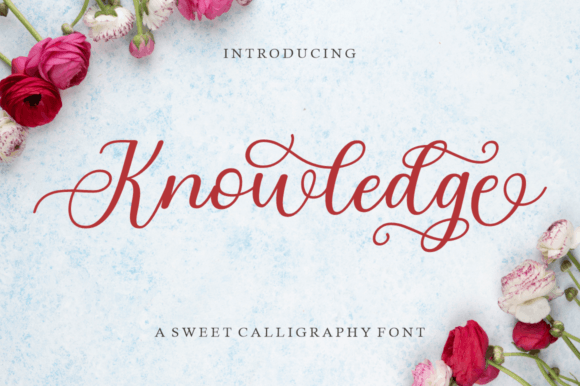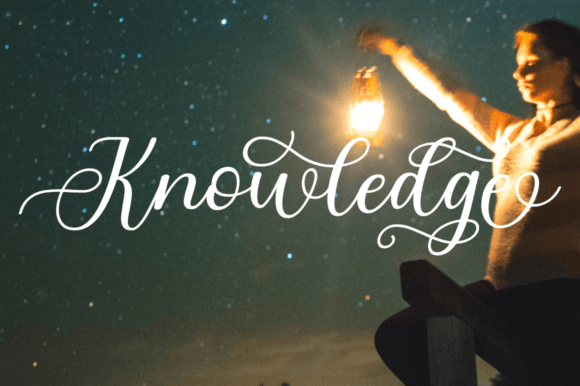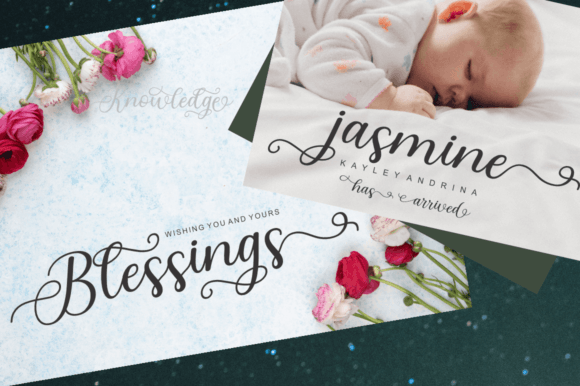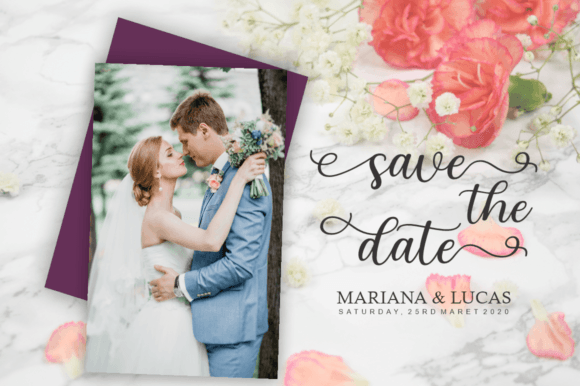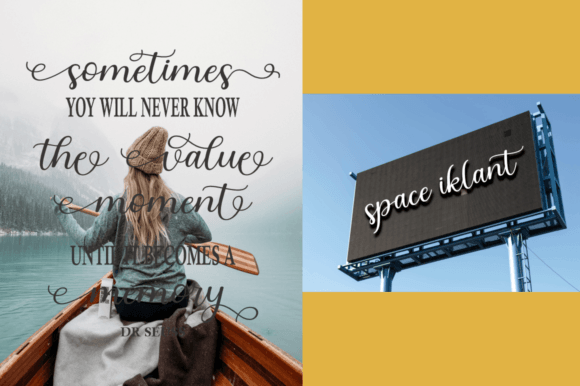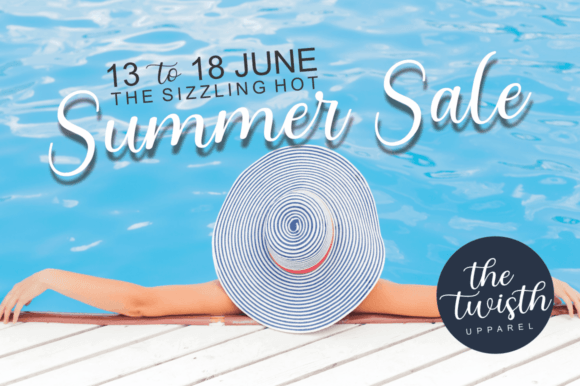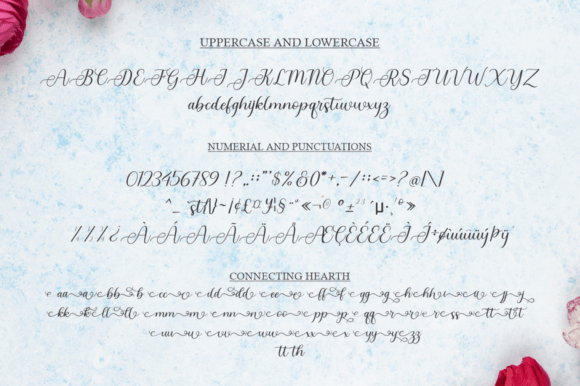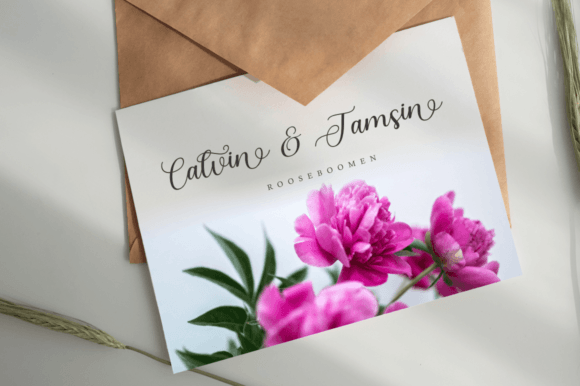
Knowledge Font
About Knowledge Font
“Knowledge” is a font that exudes style and elegance with its beautifully crafted handwritten design. Its sophistication makes it a perfect choice for a wide range of design applications, including wedding invitations, thank you cards, quotes, greeting cards, logos, business cards, and any other project that requires a touch of handwritten charm.
The font’s stylish and elegant appearance adds a sense of luxury and refinement to your designs. Its handwritten style gives your text a personal and artistic touch, making it suitable for both formal and creative contexts. Whether you’re designing for special events, branding materials, or promotional items, “Knowledge” enhances the visual appeal of your projects, creating a sense of timeless beauty and sophistication.
“Knowledge” is versatile and adaptable, allowing it to complement various themes and design elements. Its ability to convey a sense of elegance and grace makes it a valuable asset for designers who want to create visually stunning and memorable pieces of art. The font’s handwritten touch adds a touch of warmth and authenticity to your text, making your designs more engaging and relatable to your audience.
Embrace the stylishness and elegance of “Knowledge” and let it elevate your creative projects to new heights. Its timeless and sophisticated style ensures that your designs leave a lasting impression, conveying a sense of grace and refinement. Whether used in print or digital media, this font adds a touch of class to your compositions, making them visually stunning and captivating. With “Knowledge,” you can confidently create designs that reflect your impeccable taste and attention to detail, making a lasting impact on anyone who encounters your work.